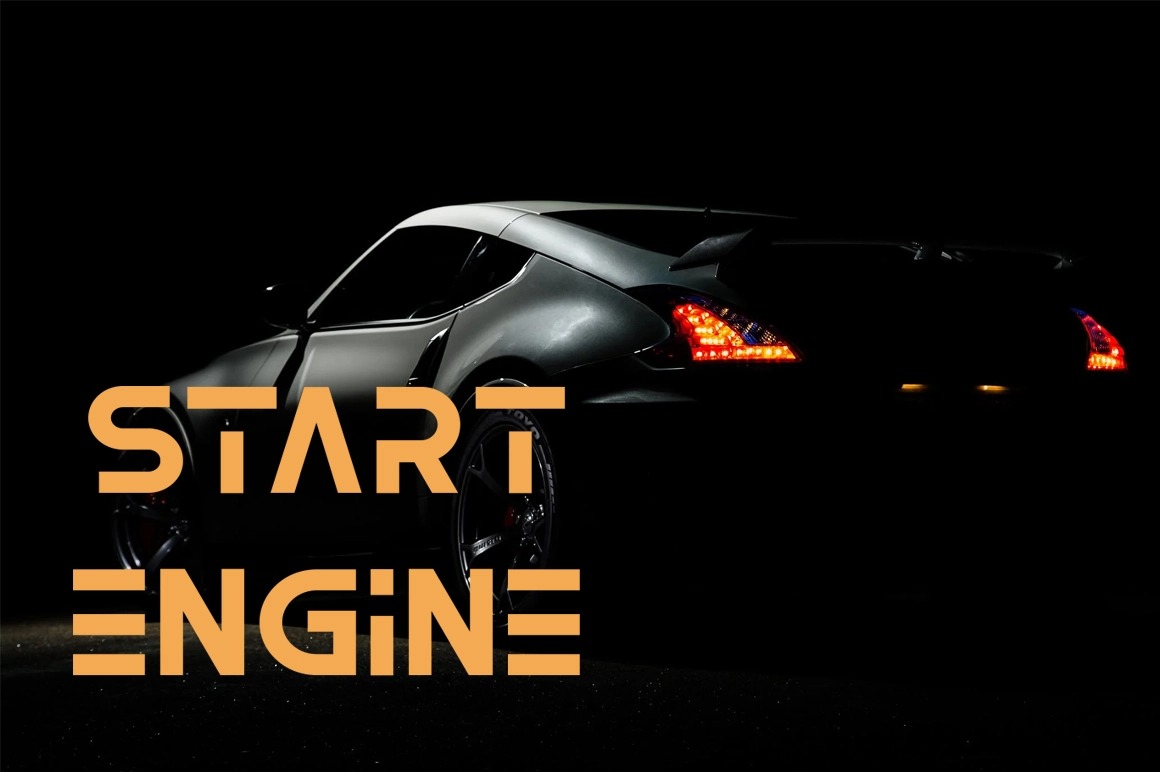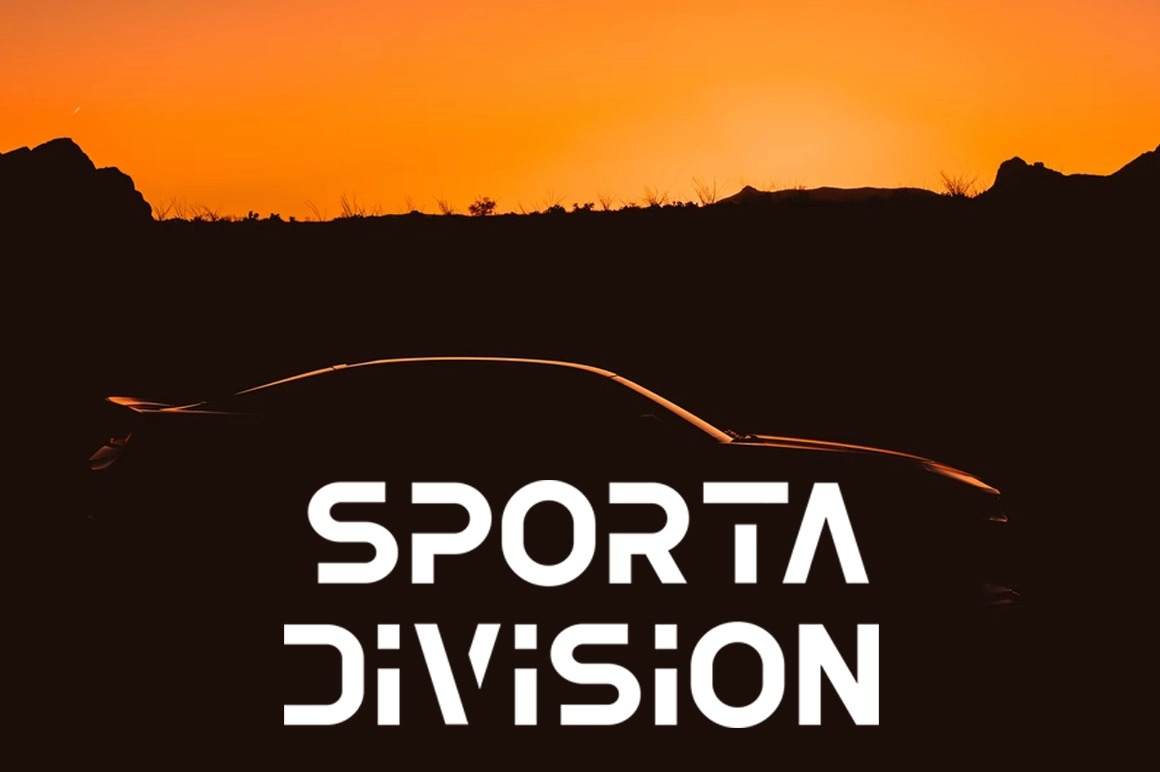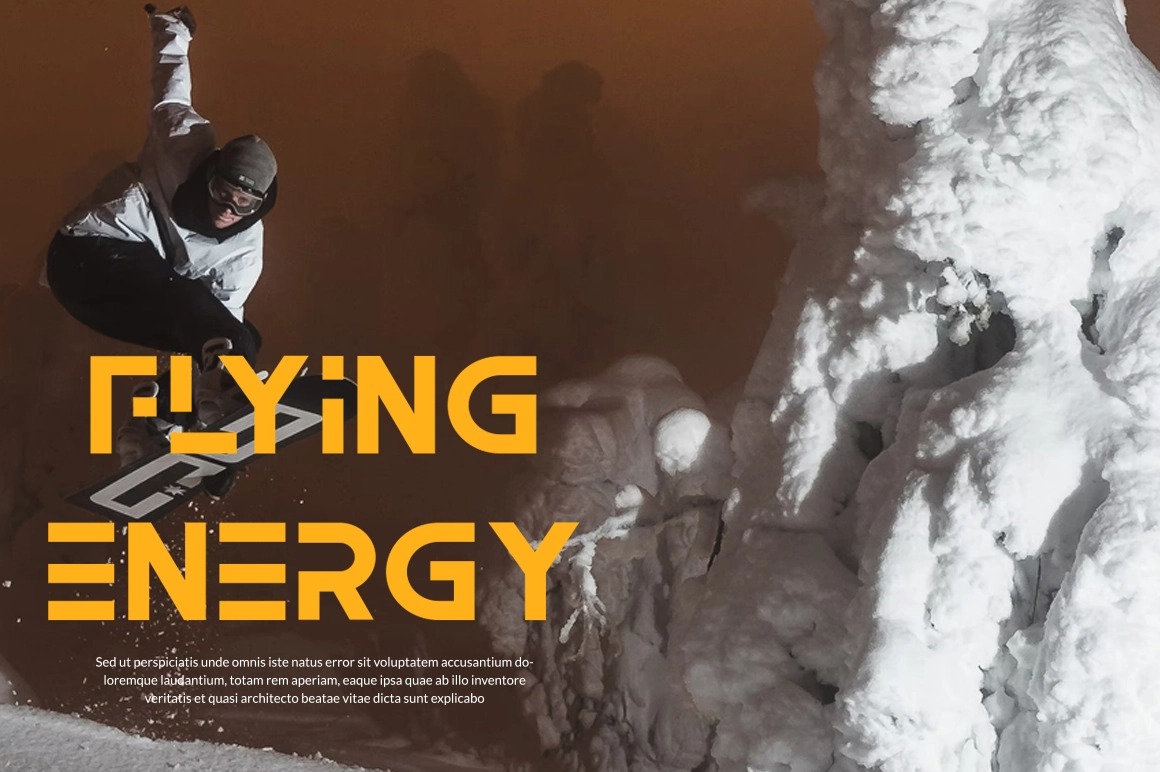
Serbie Font
Serbie Display Font
This condensed font style is a modern sans serif display font created by Vultype Co with unique lowercase that will make your design looks futuristic and modern. You can use this font for any purpose, especially to make logotype. Because of the bold body, this font has a strong impression.